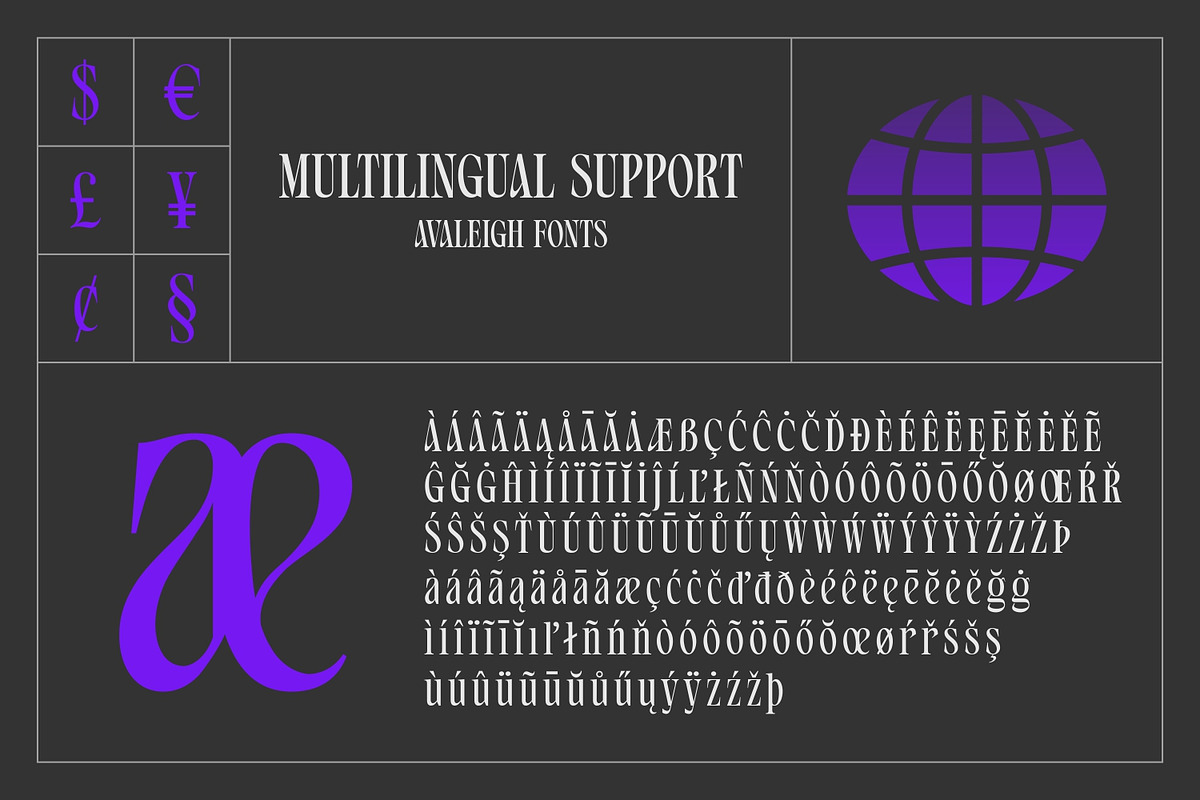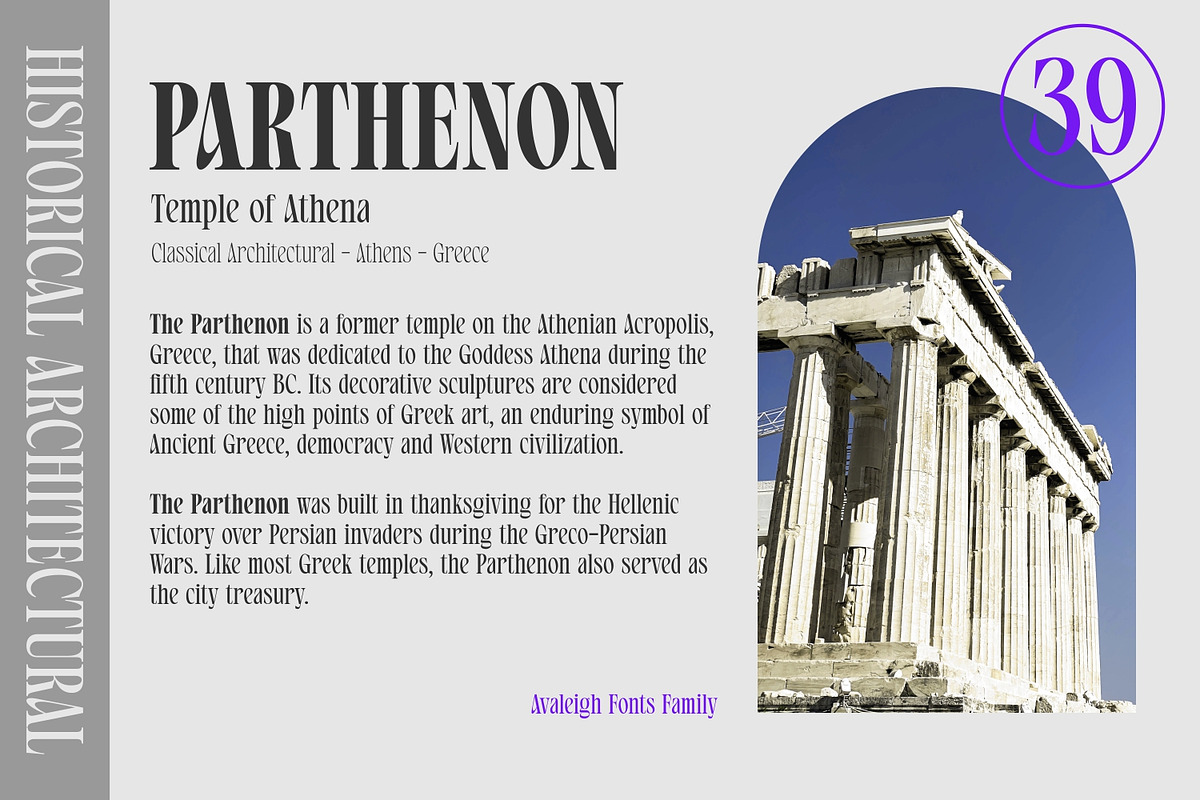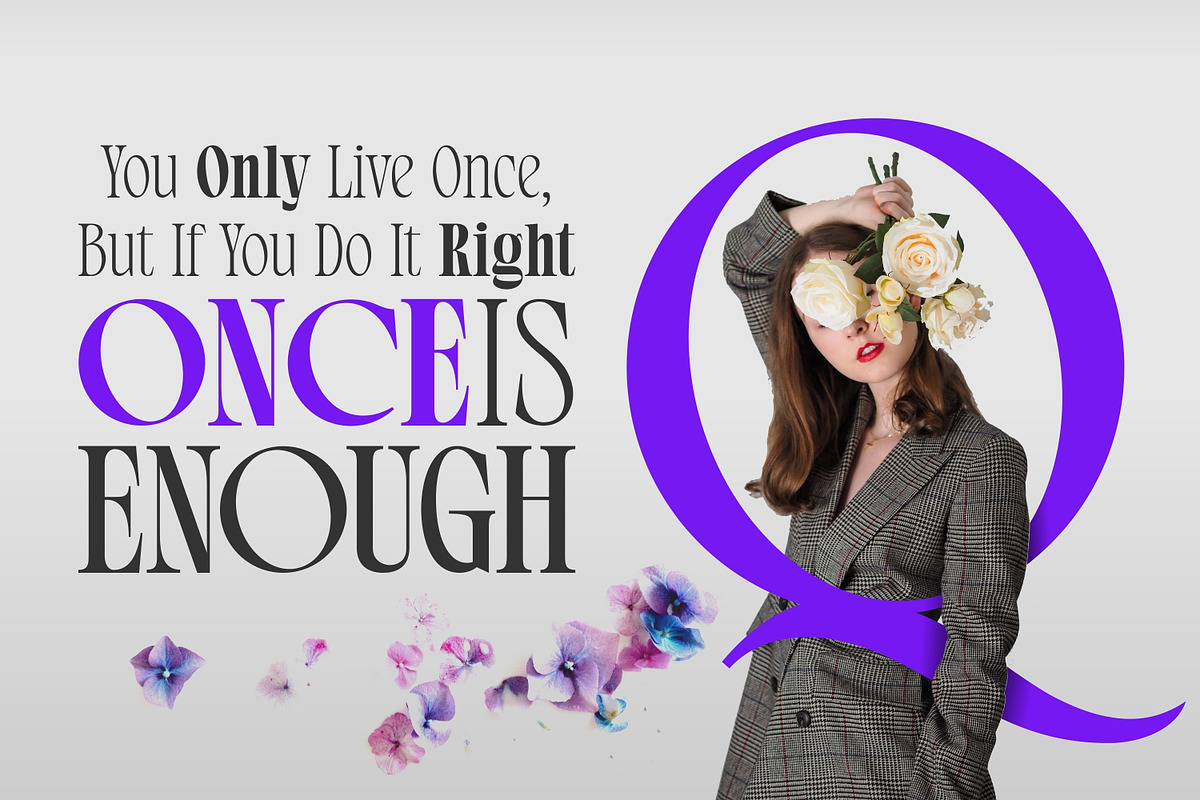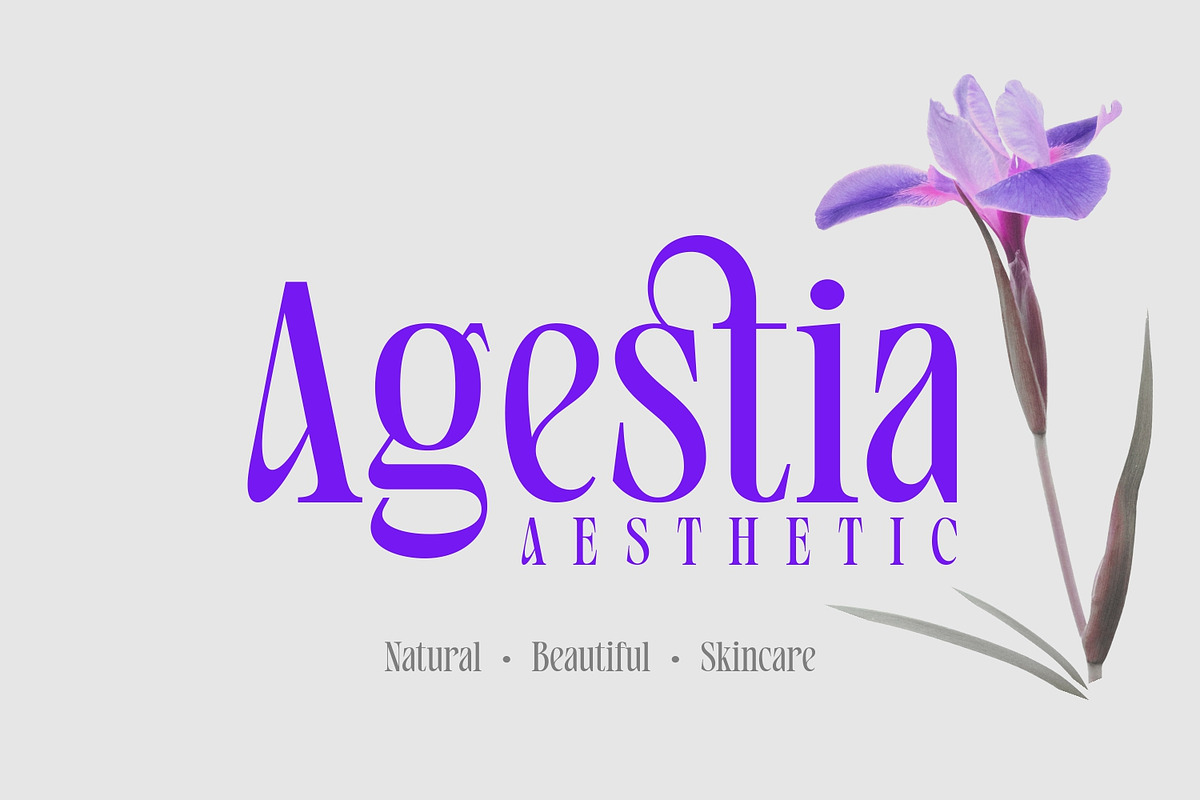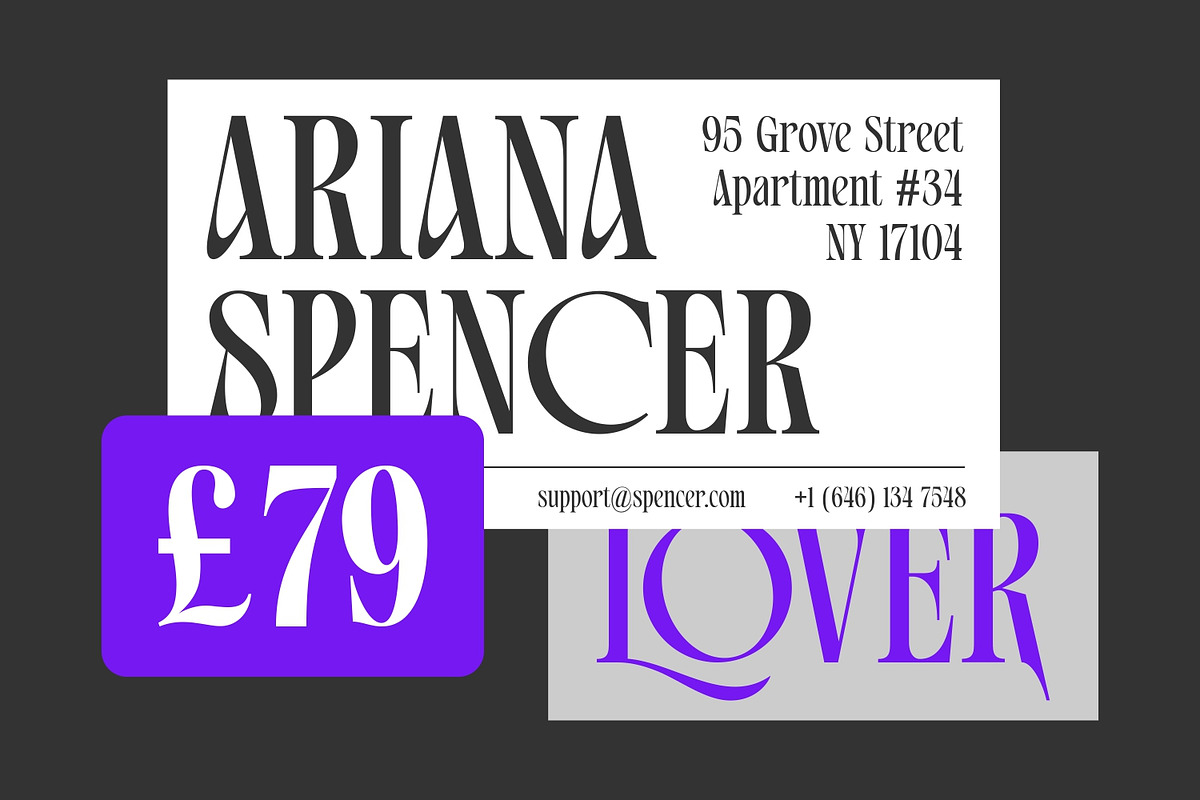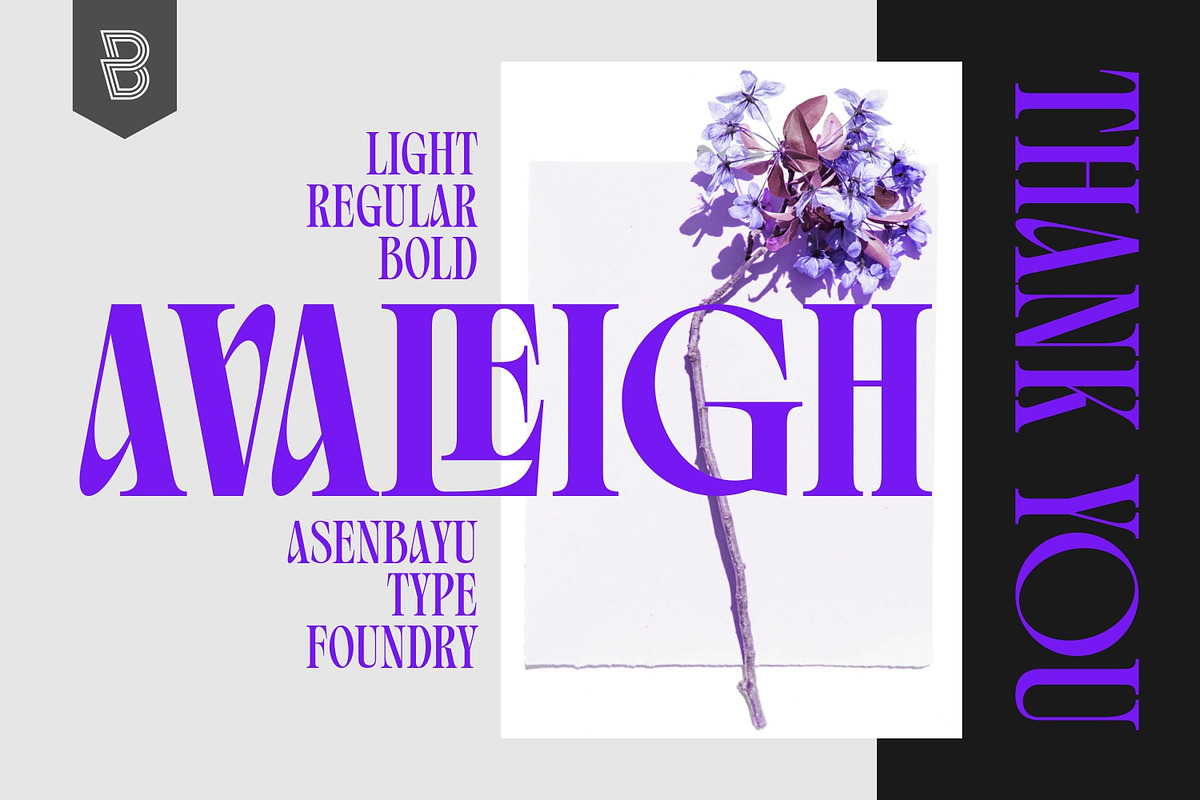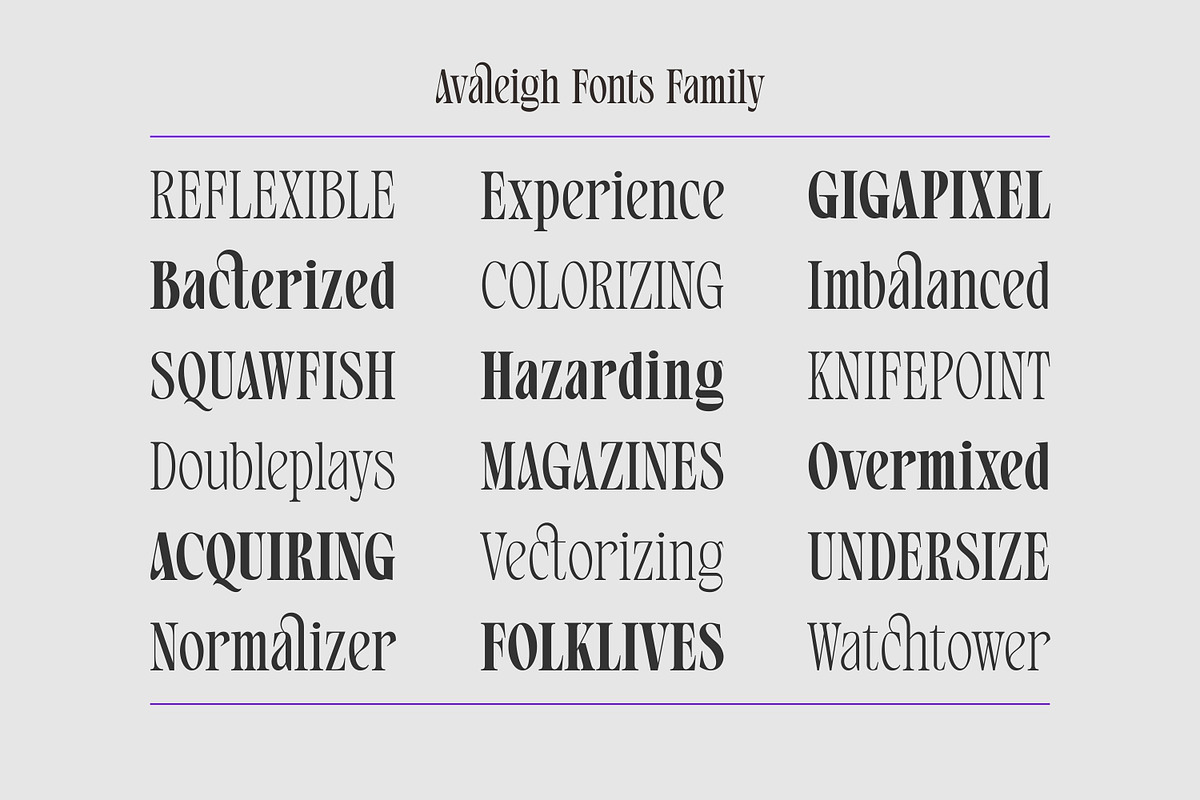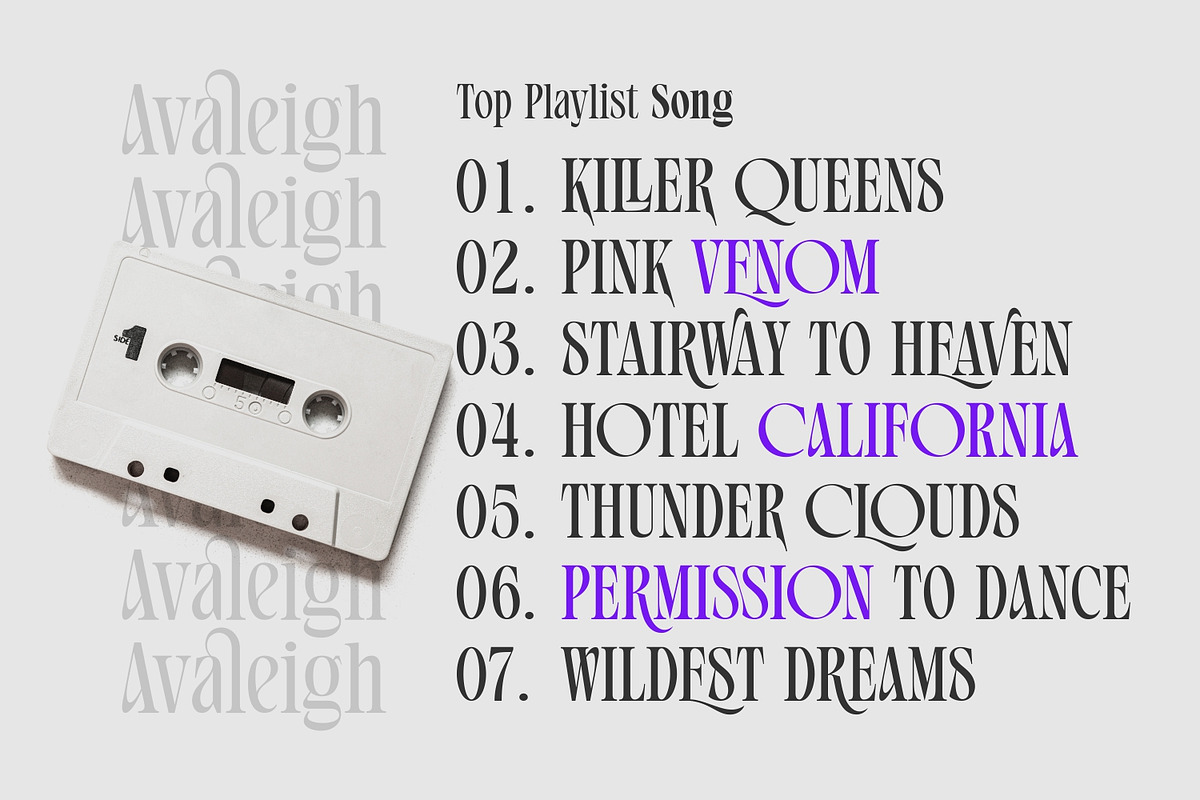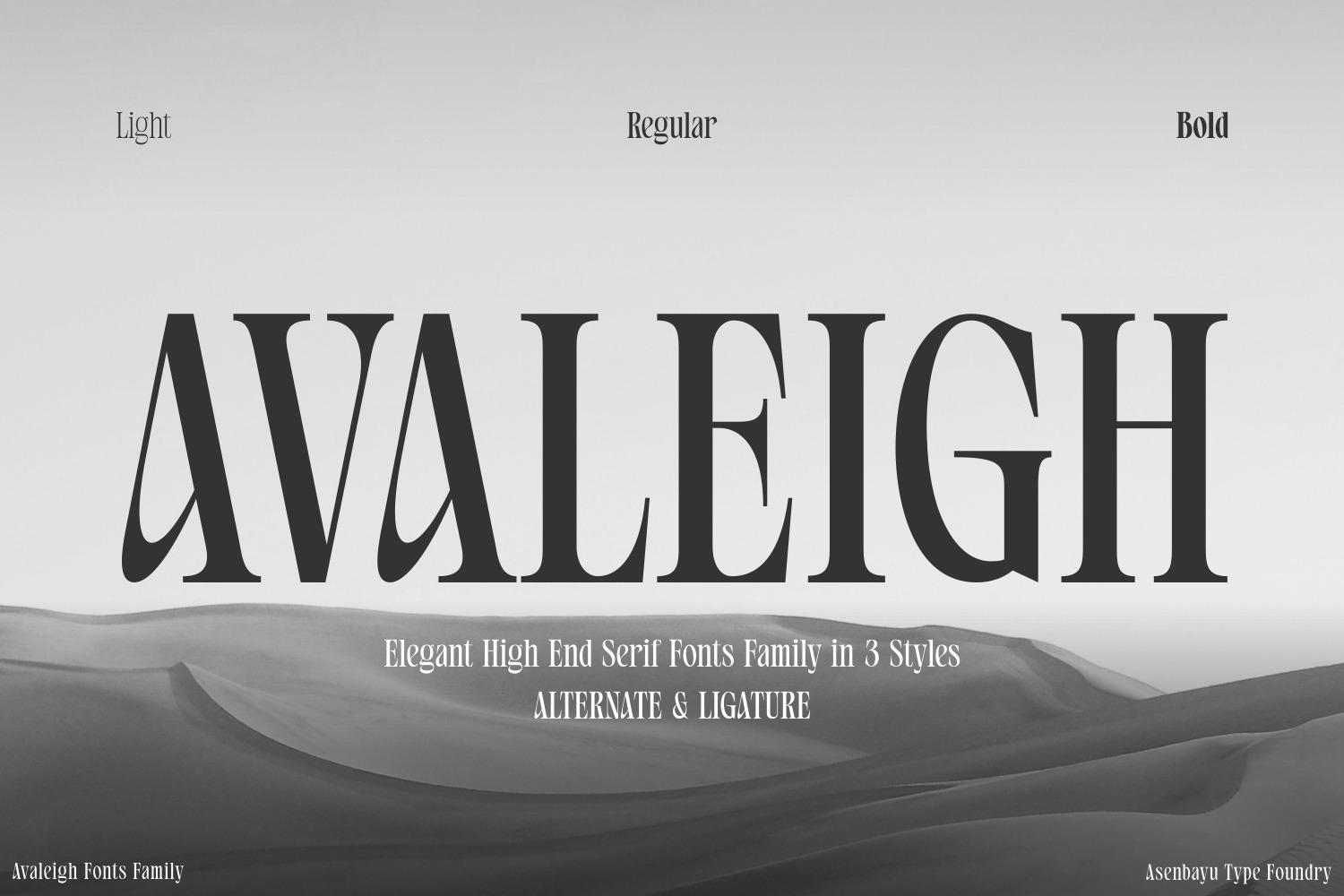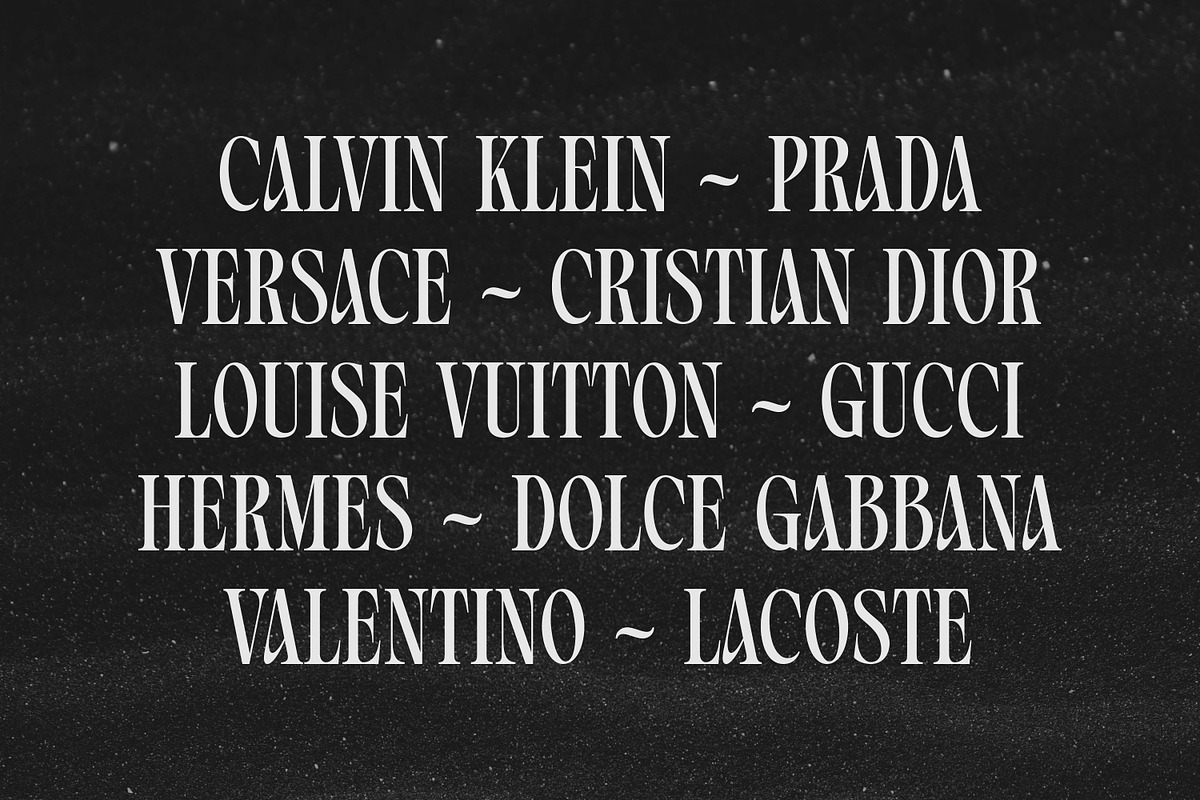
Avaleigh Fonts Family
Avaleigh is an elegant high-end serif fonts family in 3 styles. Avaleigh is a tall narrow serif font with an impressive appearance. Each letter is carefully crafted which will give the impression of an extraordinary visual experience. Avaleigh font can help you complete various projects such as brand logos, headlines, products, social media posts, web and much more.
Avaleigh fonts feature opentype, kerning, ligature and alternate packed in 3 styles: Light, Regular and Bold. Avaleigh fonts include uppercase letters, lowercase letters, numeral, punctuation and multilingual support.